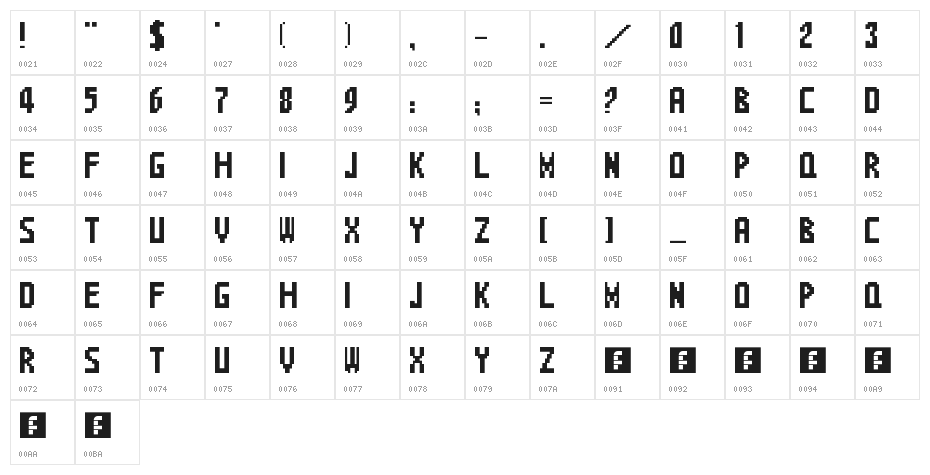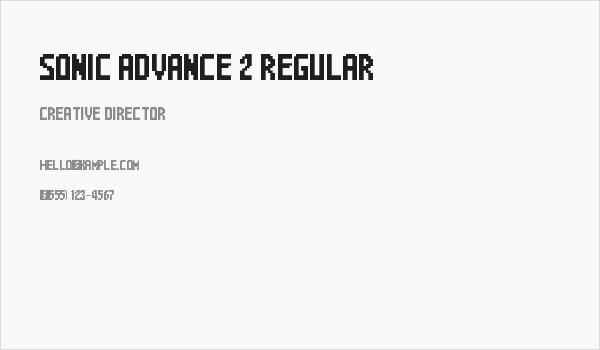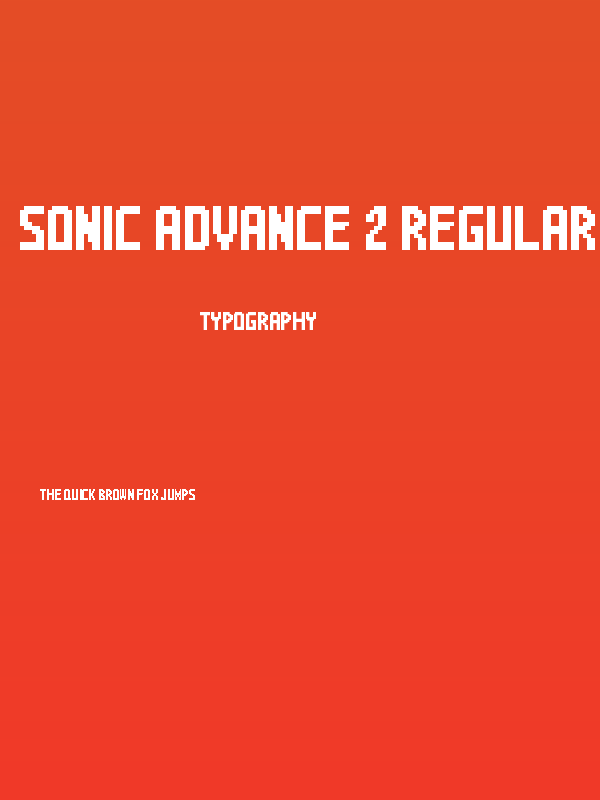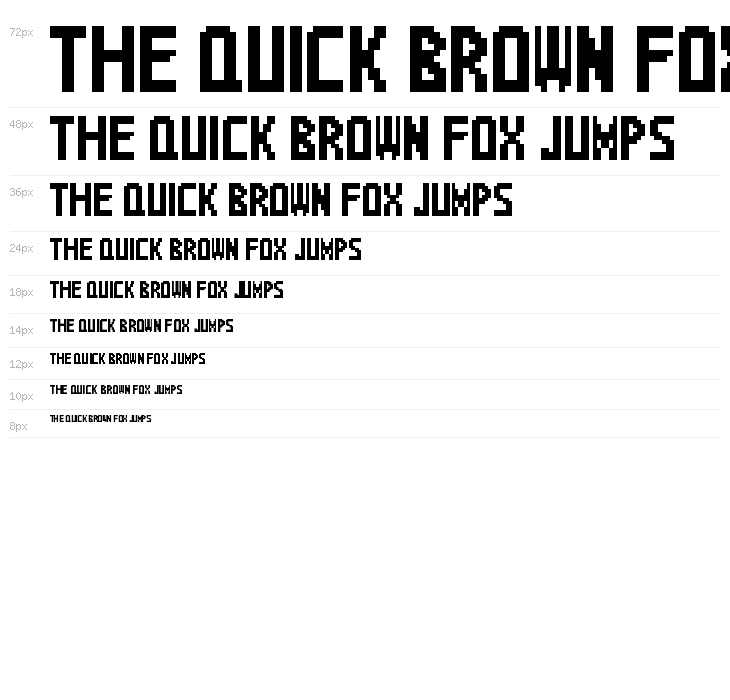
Sonic Advance 2 Regular Font
Sonic Advance 2 Regular Description
This font features a bold, pixelated design reminiscent of classic video game aesthetics. Each character is constructed with a blocky, grid-like structure, giving it a retro and digital feel. The uppercase and lowercase letters maintain a consistent height, enhancing the uniformity and readability of the text. Numbers and special characters follow the same pixelated style, ensuring a cohesive look across all elements. The font's distinct style makes it ideal for projects that aim to evoke nostalgia or a digital theme.
Overall StyleRetro, Digital
Use CaseHeadlines, Logos, Digital Art
Proposed ProjectsIdeal for retro video game designs, digital art projects, and nostalgic branding.